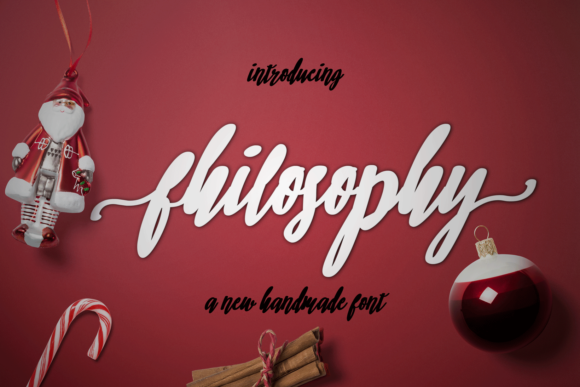
Philosophy Font
About Philosophy Font
The Philosophy is a fresh, modern script with a handmade calligraphy style. It has decorative characters which look beautiful on invitations, greeting cards, branding materials, business cards, and much more!